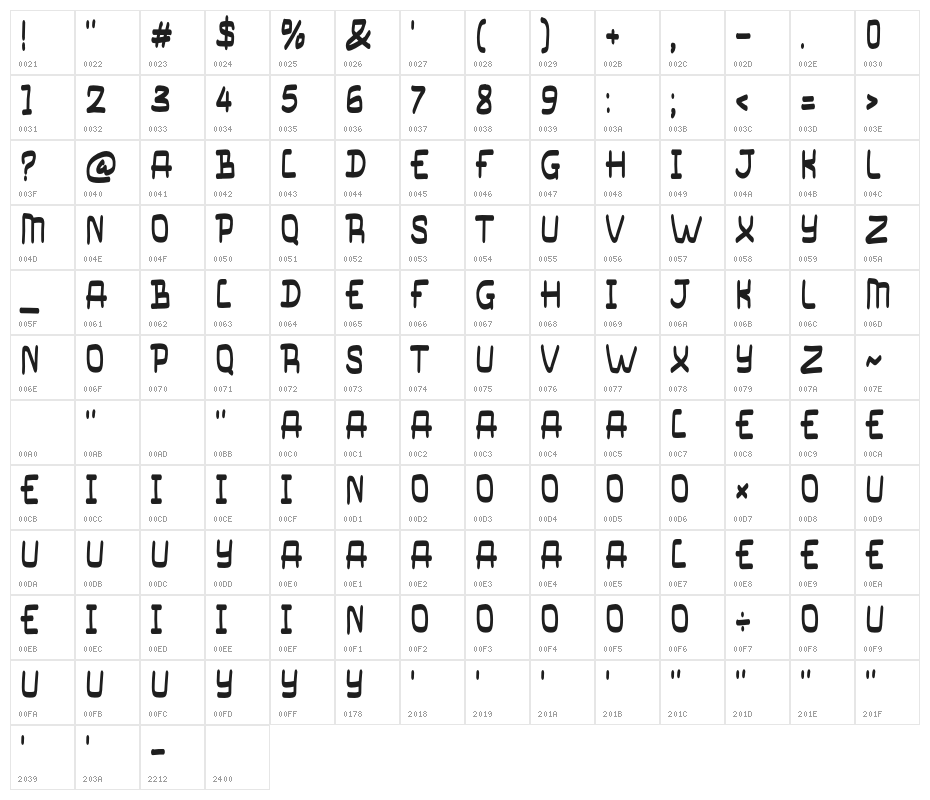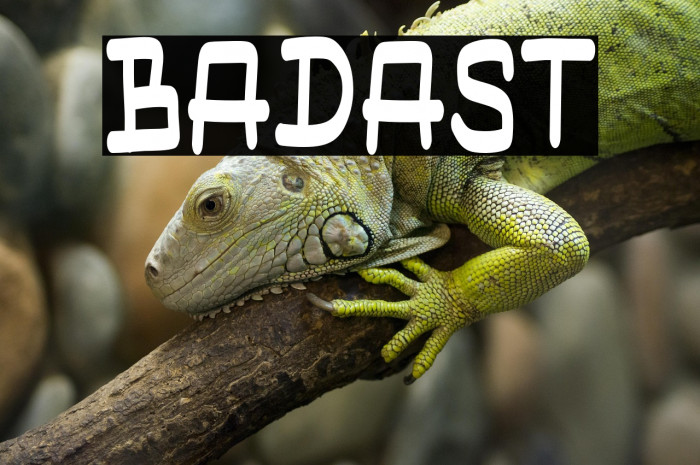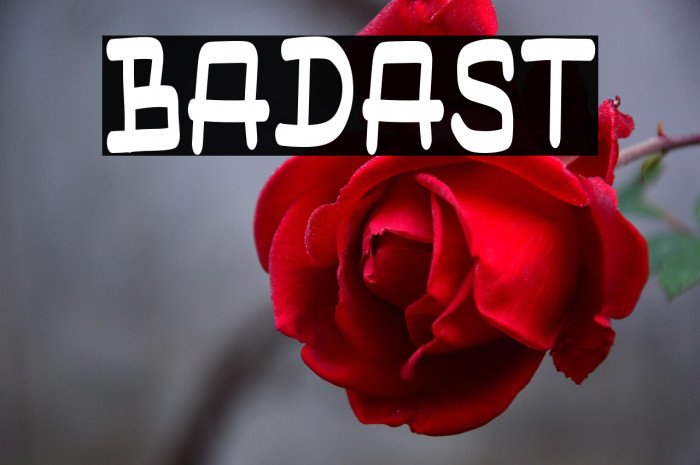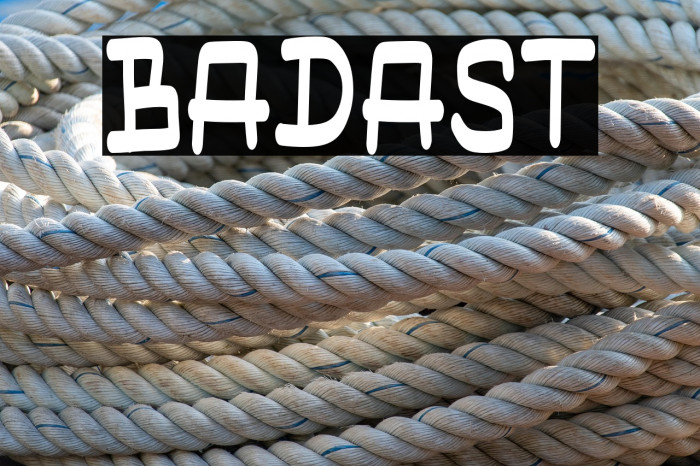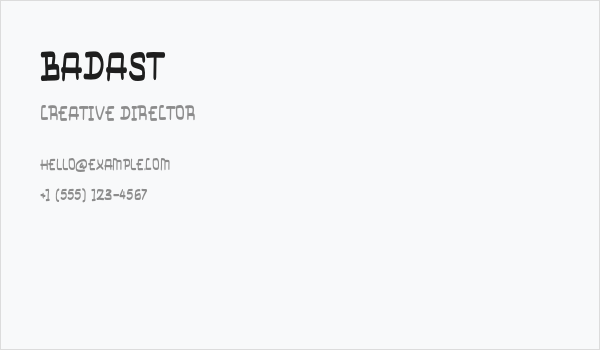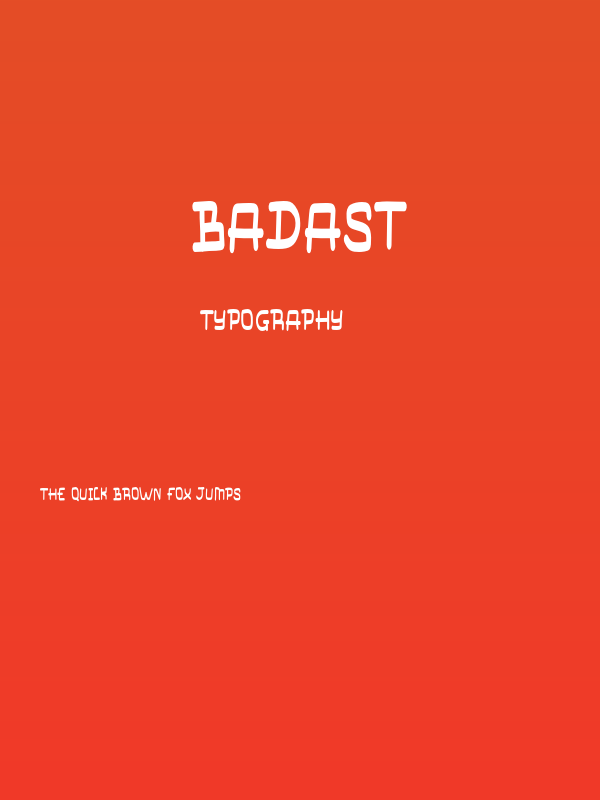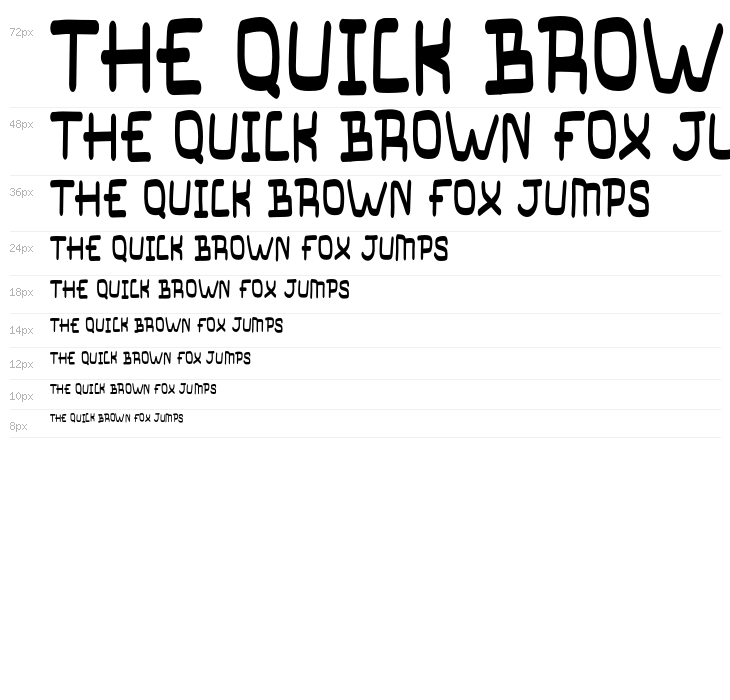
BADAST Font
BADAST Description
This font features a playful and bold style with rounded edges and a slightly irregular form, giving it a hand-drawn appearance. The uppercase and lowercase letters maintain a consistent thickness, creating a cohesive look. The numbers and special characters follow the same design principles, ensuring uniformity across all characters. The font's unique style makes it stand out, with a casual and friendly vibe that is both approachable and versatile. Its boldness ensures readability, while the rounded forms add a touch of whimsy and creativity.
| Overall Style | Playful, Casual |
| Proposed Projects | Ideal for children's books, playful branding, casual invitations, and creative posters. |